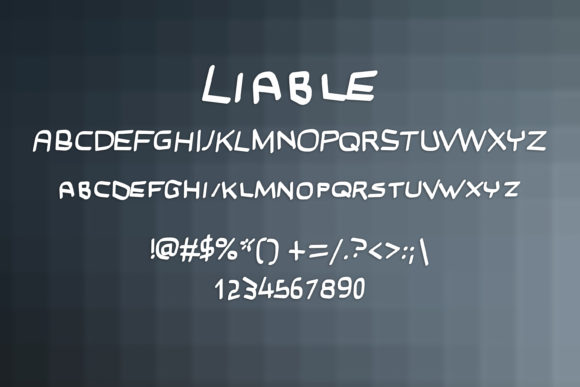
Introduction to Liable Font
Have you ever stared at a blank page, desperately searching for the perfect words to bring your creative project to life? As designers, we’ve all been there – pouring over font options, trying to find the perfect combination of style and substance. That’s where the Liable Font comes in – a quirky, wobbly, and utterly charming display font that’s sure to add a touch of personality to any design.
With its unique handwritten style, the Liable Font is a game-changer for designers looking to add a bit of whimsy to their work. Whether you’re creating a promotional poster, designing a website, or crafting a social media campaign, this font is sure to deliver your message with confidence and style. And the best part? It’s a high-quality design resource that’s available for free download, complete with a transparent background that makes it easy to customize and use in any project.
Key Features of Liable Font
- High-quality, professional design suitable for various creative projects, including logos, branding, and marketing materials.
- Available in a single font weight, making it ideal for simple, yet effective, typography-based designs.
- Designed with a clean, modern aesthetic, perfect for contemporary design projects.
Honest Review: Liable Font
I recently stumbled upon the Liable Font, and I must say it’s been a game-changer for my creative projects. As a designer, I’m always on the lookout for high-quality fonts that can elevate my designs and make them stand out.
Here are some of the features that I love about the Liable Font:
Of course, no font is perfect, and the Liable Font has a few limitations. ⚠️ For example, it’s not suitable for projects that require a bold, attention-grabbing font. It’s also not available in as many languages as some other fonts.
Overall, I’m really impressed with the Liable Font. It’s a solid addition to any designer’s toolkit, and I’d definitely recommend it to anyone looking for a high-quality, versatile font.
Tips for Getting the Most Out of Liable Font
Use the Liable Font in combination with a transparent background to create a modern and sleek design. Experiment with different font sizes and styles to add visual interest to your creative project.
The Liable Font is ideal for use in logos, business cards, and marketing materials. Its high-quality design makes it perfect for creative projects that require a professional touch.